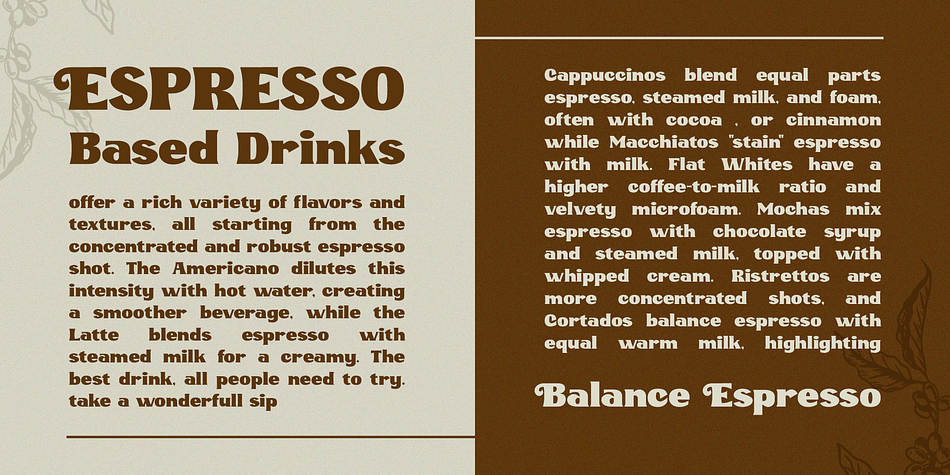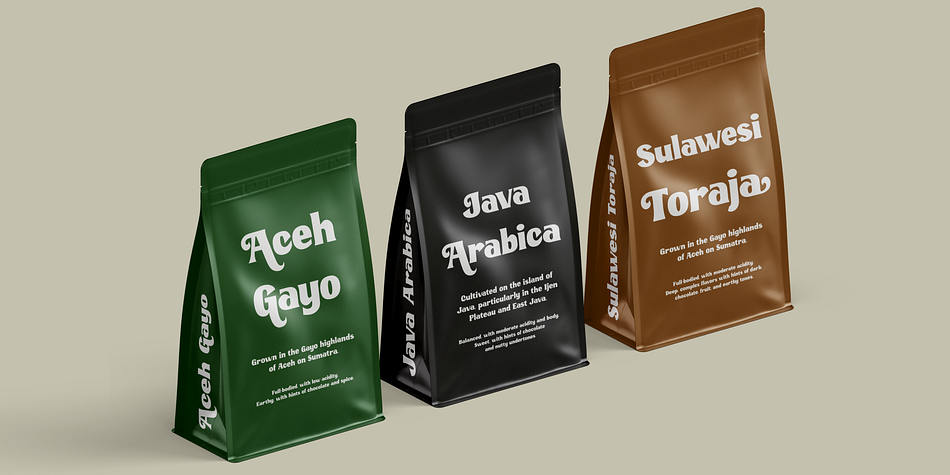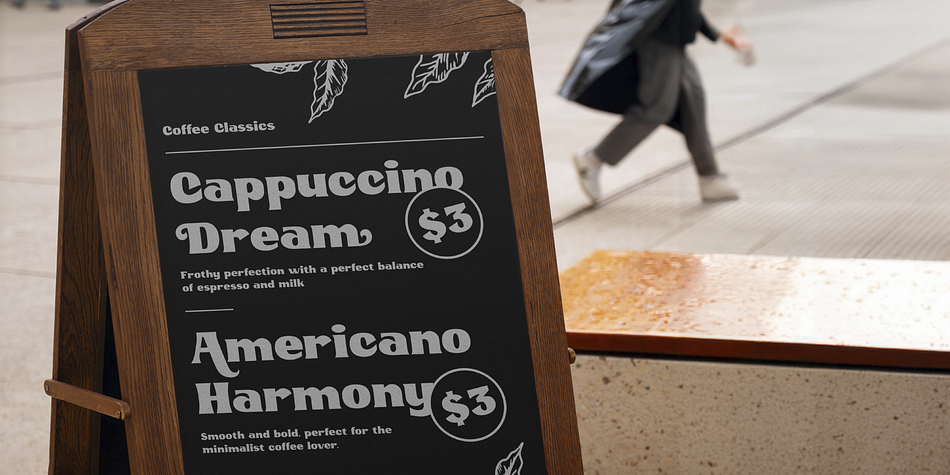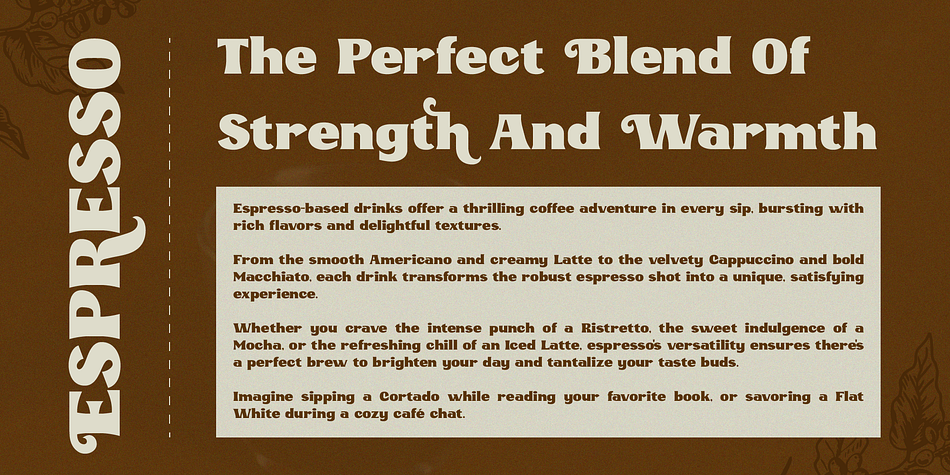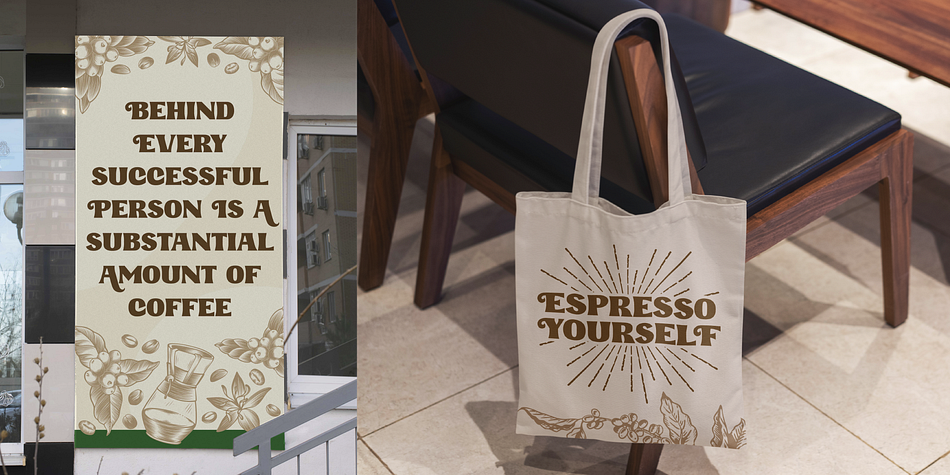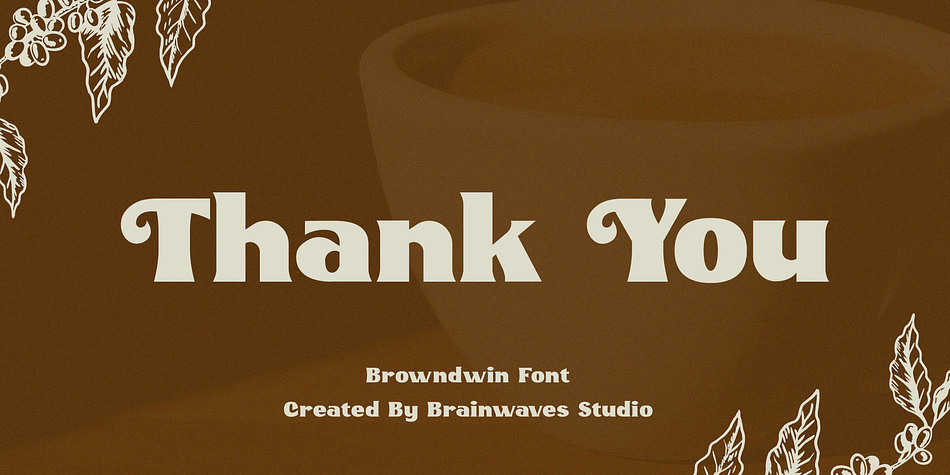
Browndwin
Designed by Lucky Fitriadi, Browndwin is a serif font family. This typeface has two styles and was published by Brainwaves Studio.
“BROWNDWIN” is a retro display font that captures the essence of retro charm. This typeface showcases bold, striking characters with detailed intricacies, evoking a sense of nostalgia and timeless elegance. Suitable for various design projects, BROWNDWIN is ideal for headlines, posters, logos, and branding that seek to make a memorable impact with a retro aesthetic. Its distinctive style and strong visual appeal make BROWNDWIN a perfect choice for infusing any creative work with classic sophistication.